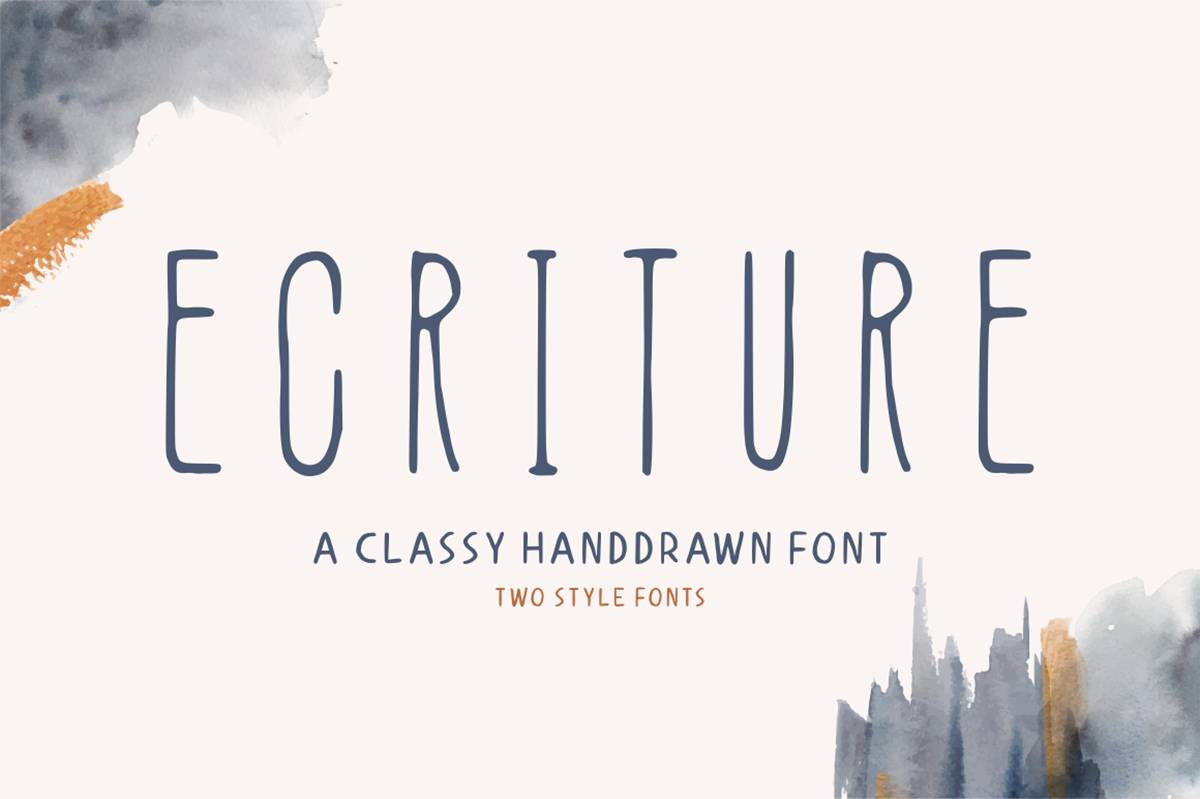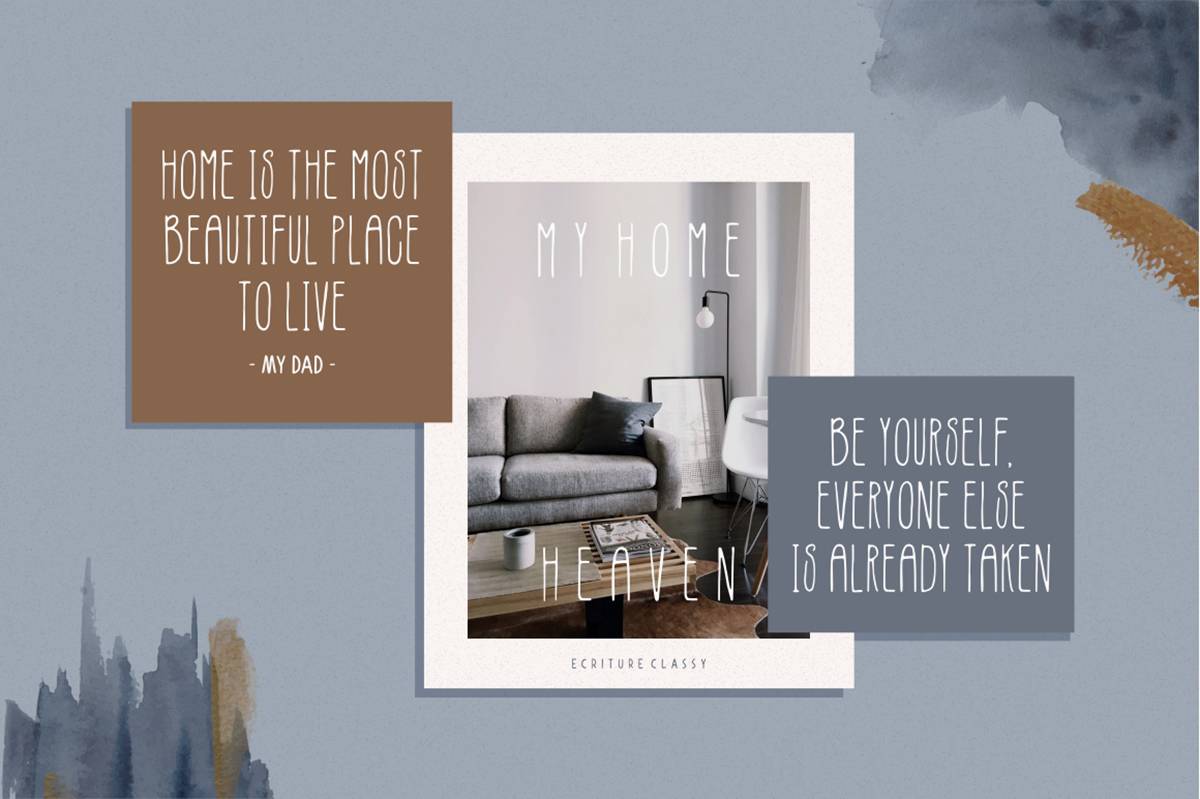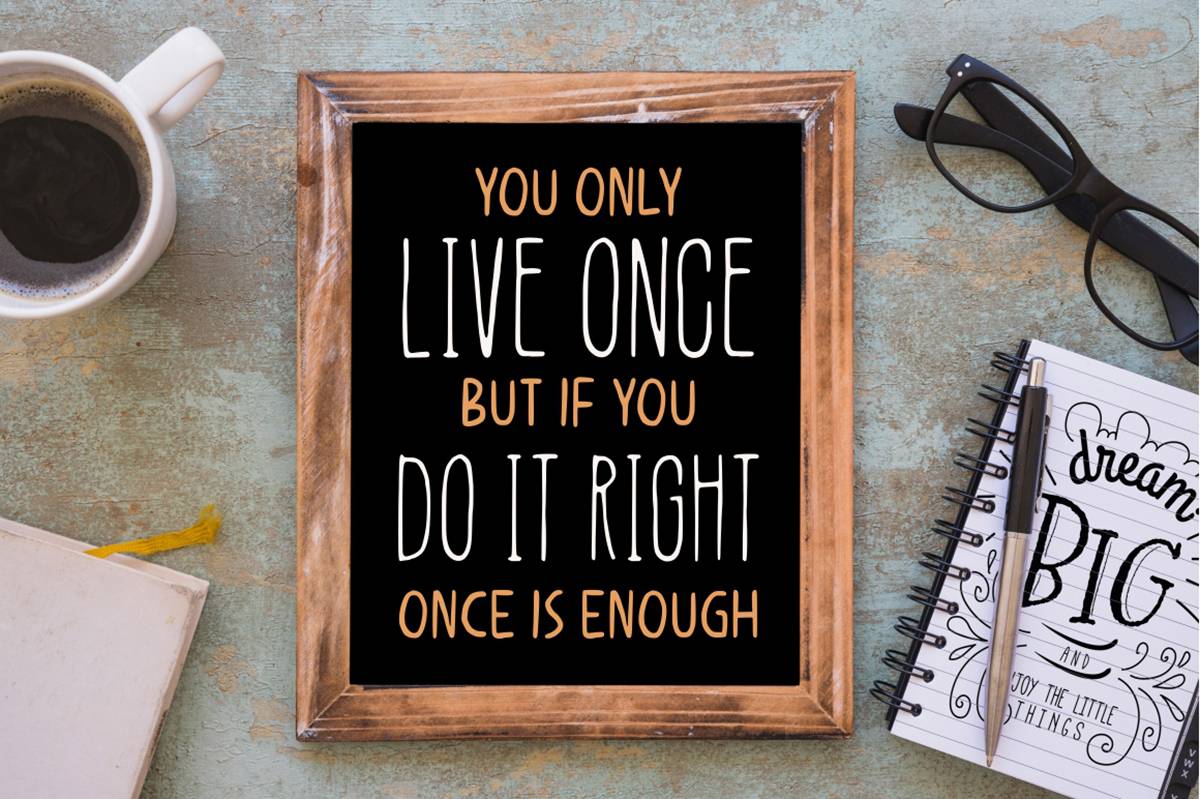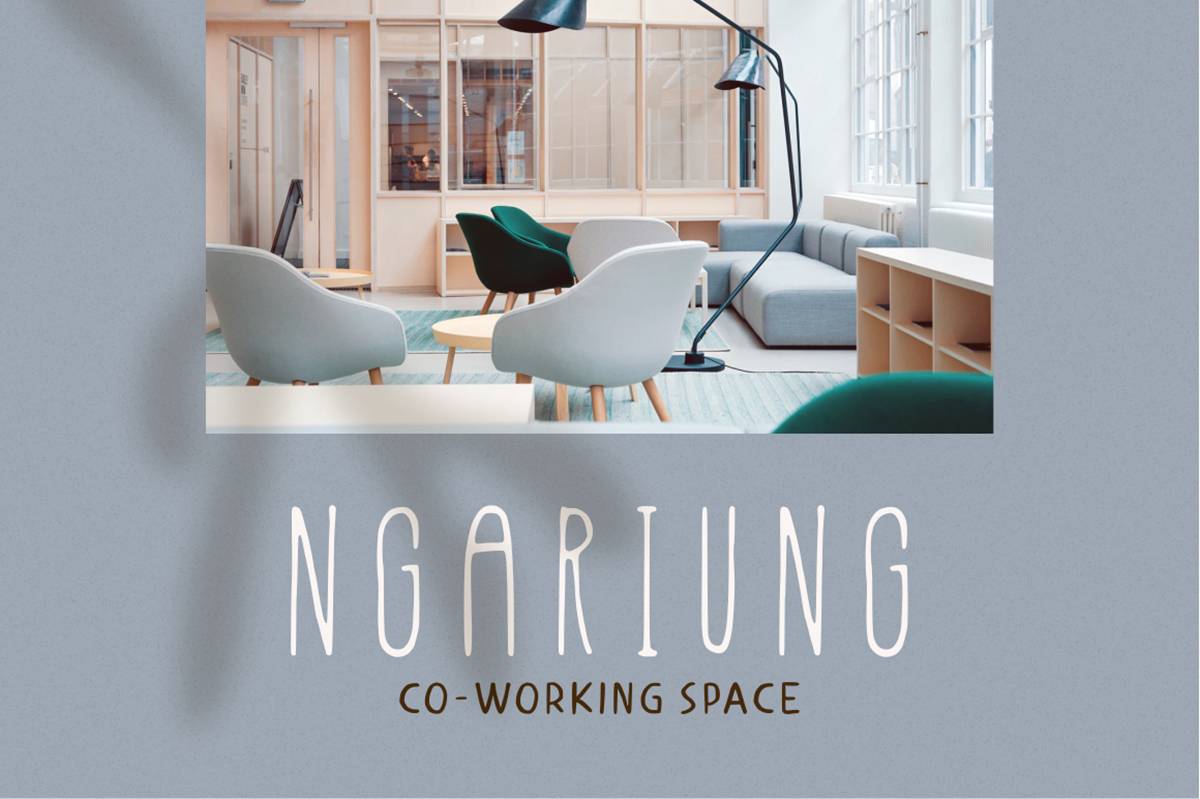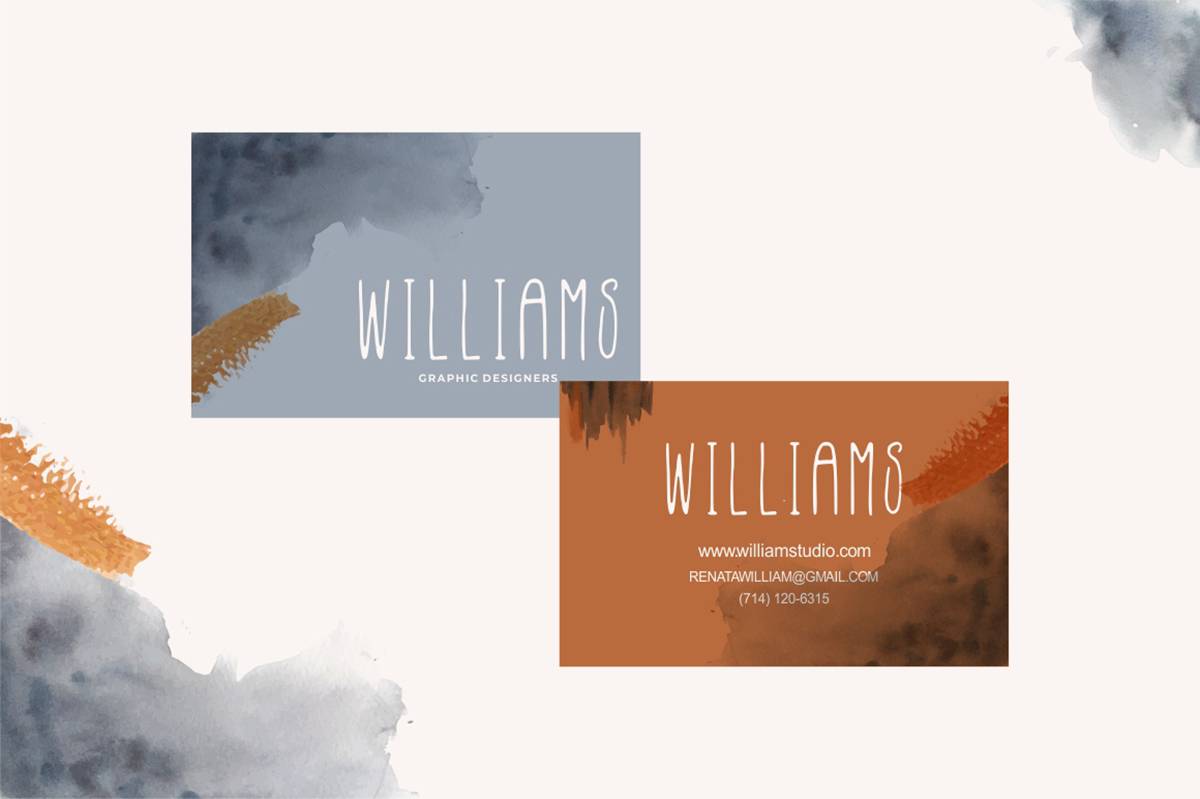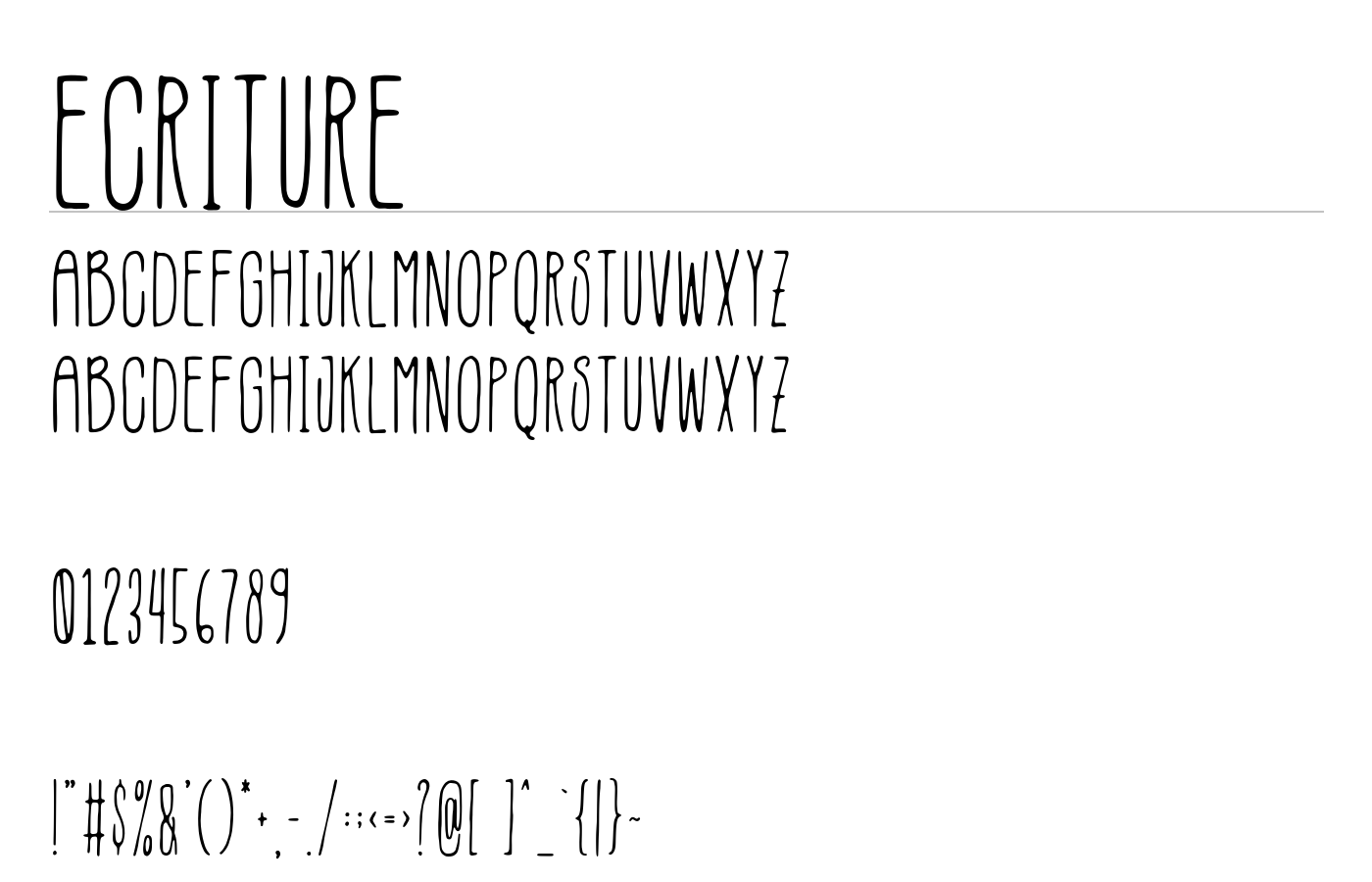
Ecriture is a tall, narrow sans serif font with a playful, hand-drawn feel characterized by its thin strokes and slightly irregular letterforms. Its light weight and condensed width create an airy yet quirky personality, making it perfect for creative branding, casual headlines, and designs that need a touch of informal charm. This font works well where a modern, friendly, and approachable vibe is desired, especially in projects that want to convey uniqueness and warmth.
Ecriture Font
About Ecriture Font
| Font family | Ecriture Font |